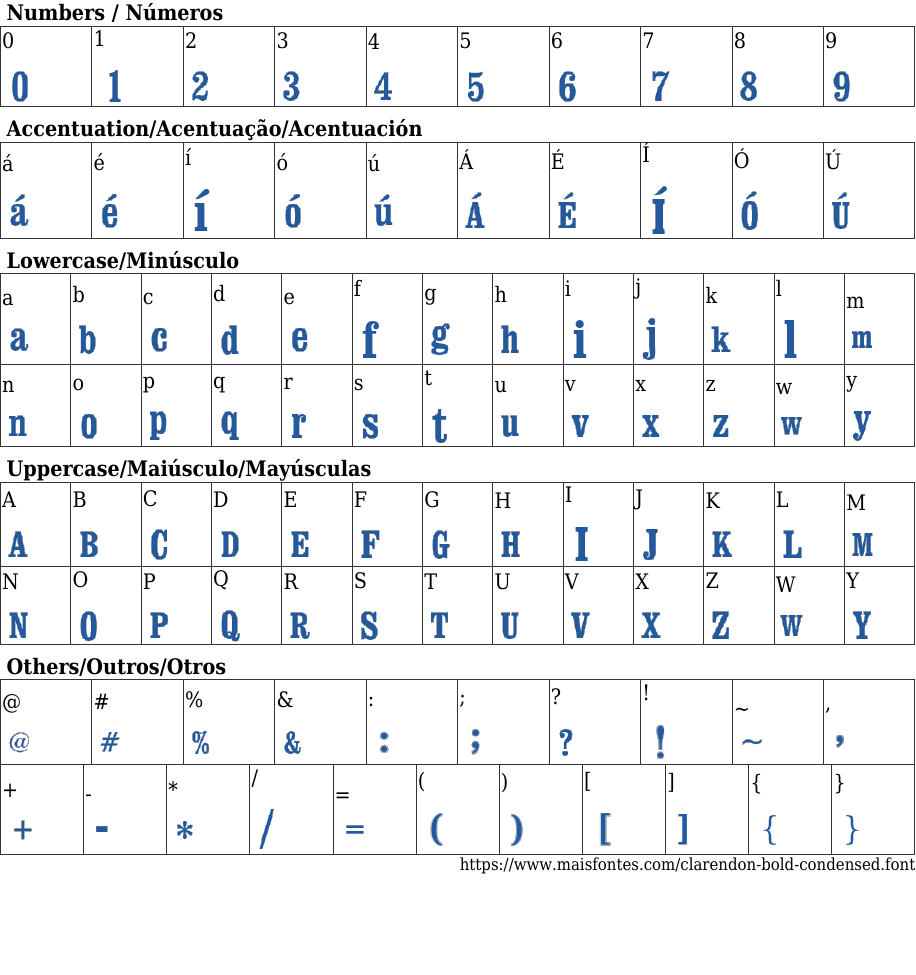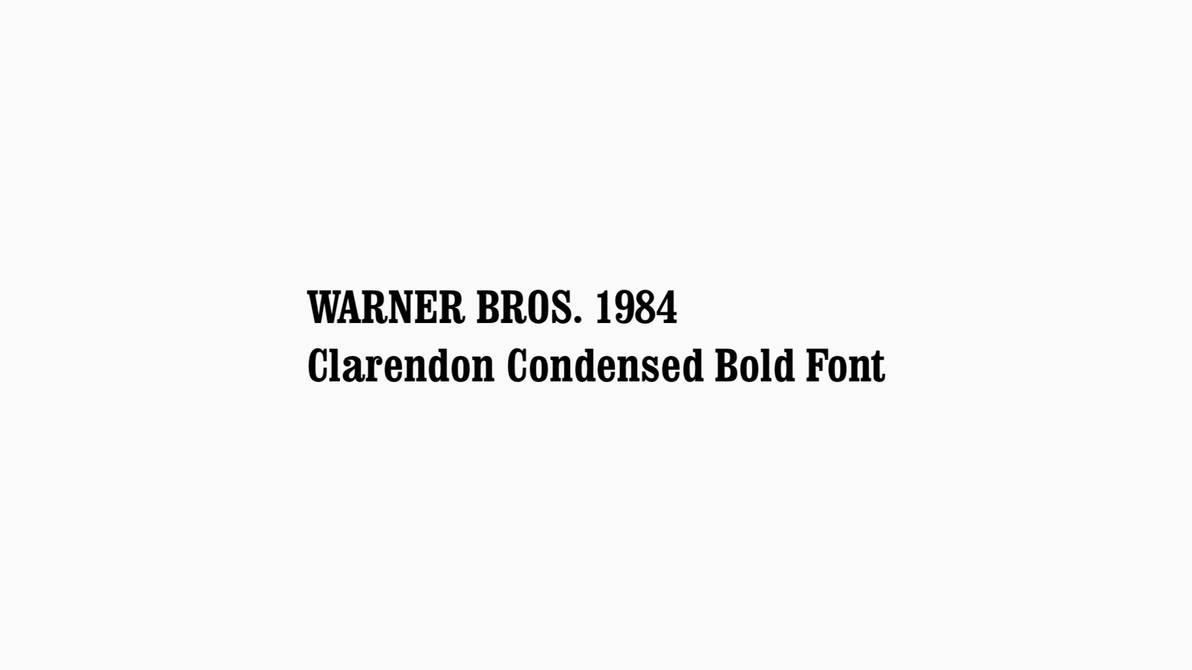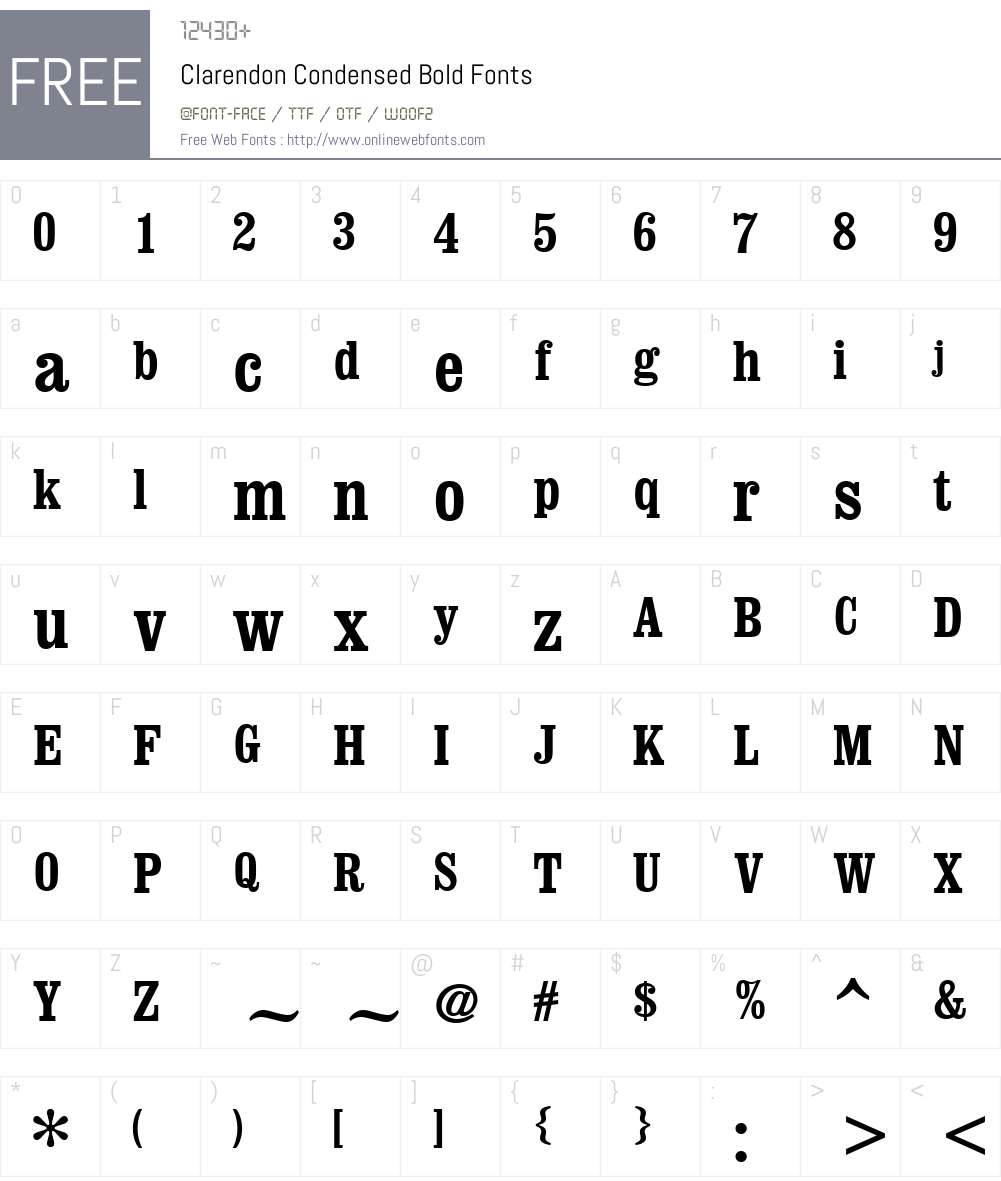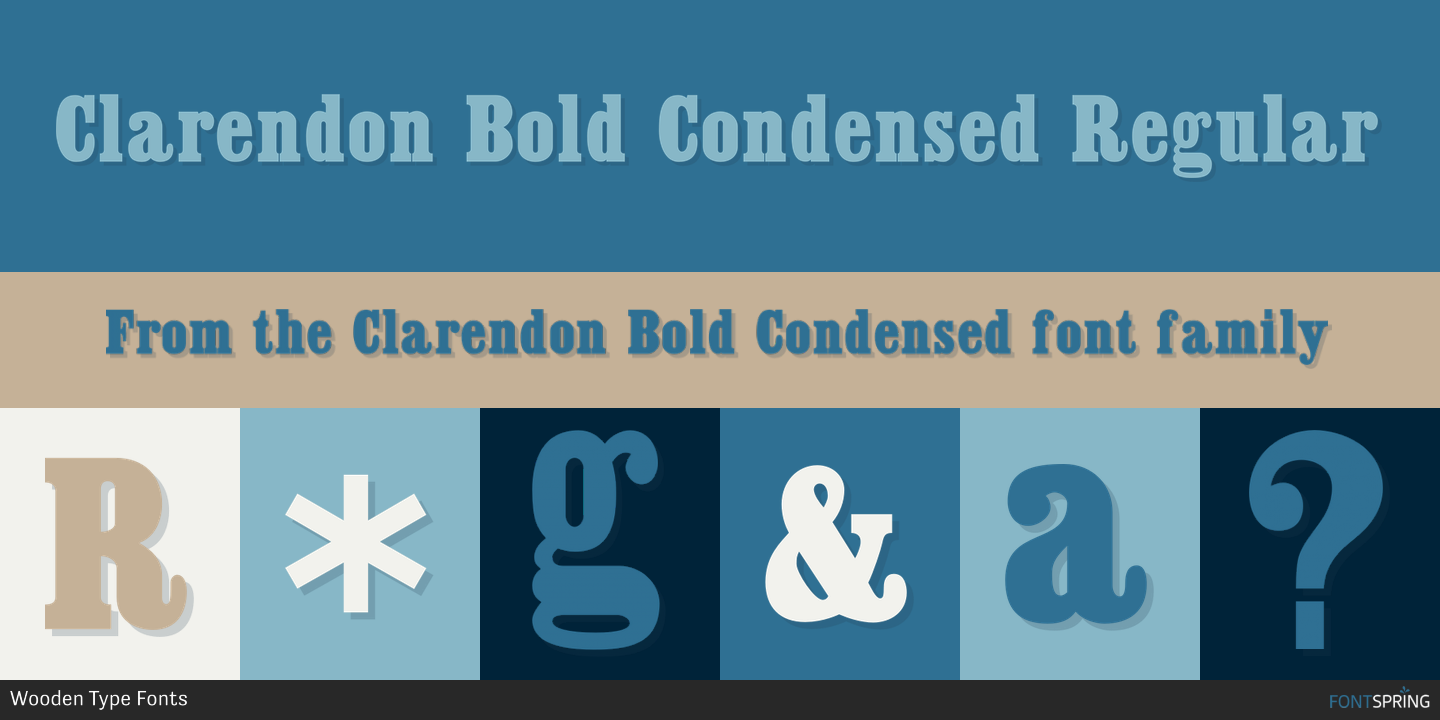
Clarendon Condensed Bold Font Free . A slab serif typeface with 4 styles, available from adobe fonts for sync and web. Download free and premium fonts. sites using the typeface clarendon with personal recommendations for similar web fonts, suggested font pairings and the closest free alternative. Clarendon’s are classical designs with rather thick and strong lines resembling “modern serif types” which were used in the. Explore clarendon text designed by patrick griffin at adobe fonts. This means that you can easily access this versatile and. Fontsplace is the best place to download clarendon bold condensed bt for free. The clarendon pro condensed bold font brings firmer and bolder letters and requires caution in the creation of art in order not to. Clarendon bold condensed font is available for free download at fontsmarket.com. Clarendon condensed font subfamily identification :
A slab serif typeface with 4 styles, available from adobe fonts for sync and web. This means that you can easily access this versatile and. Fontsplace is the best place to download clarendon bold condensed bt for free. Download free and premium fonts. sites using the typeface clarendon with personal recommendations for similar web fonts, suggested font pairings and the closest free alternative. Clarendon’s are classical designs with rather thick and strong lines resembling “modern serif types” which were used in the. The clarendon pro condensed bold font brings firmer and bolder letters and requires caution in the creation of art in order not to. Clarendon condensed font subfamily identification : Explore clarendon text designed by patrick griffin at adobe fonts. Clarendon bold condensed font is available for free download at fontsmarket.com.
Clarendon Condensed Bold Font Free Download free and premium fonts. A slab serif typeface with 4 styles, available from adobe fonts for sync and web. Clarendon condensed font subfamily identification : The clarendon pro condensed bold font brings firmer and bolder letters and requires caution in the creation of art in order not to. sites using the typeface clarendon with personal recommendations for similar web fonts, suggested font pairings and the closest free alternative. Download free and premium fonts. This means that you can easily access this versatile and. Fontsplace is the best place to download clarendon bold condensed bt for free. Explore clarendon text designed by patrick griffin at adobe fonts. Clarendon bold condensed font is available for free download at fontsmarket.com. Clarendon’s are classical designs with rather thick and strong lines resembling “modern serif types” which were used in the.
Clarendon Font Free Download Clarendon Condensed Bold Font Free Fontsplace is the best place to download clarendon bold condensed bt for free. The clarendon pro condensed bold font brings firmer and bolder letters and requires caution in the creation of art in order not to. sites using the typeface clarendon with personal recommendations for similar web fonts, suggested font pairings and the closest free alternative. Clarendon condensed font subfamily. Clarendon Condensed Bold Font Free.
ClarendonBold Font by Charlieaat on DeviantArt Clarendon Condensed Bold Font Free Download free and premium fonts. Clarendon bold condensed font is available for free download at fontsmarket.com. A slab serif typeface with 4 styles, available from adobe fonts for sync and web. sites using the typeface clarendon with personal recommendations for similar web fonts, suggested font pairings and the closest free alternative. Clarendon condensed font subfamily identification : Explore clarendon text. Clarendon Condensed Bold Font Free.
Clarendon Font Clarendon Condensed Bold Font Free Fontsplace is the best place to download clarendon bold condensed bt for free. Clarendon condensed font subfamily identification : Explore clarendon text designed by patrick griffin at adobe fonts. A slab serif typeface with 4 styles, available from adobe fonts for sync and web. Download free and premium fonts. sites using the typeface clarendon with personal recommendations for similar web. Clarendon Condensed Bold Font Free.
Identifont Clarendon Bold Clarendon Condensed Bold Font Free The clarendon pro condensed bold font brings firmer and bolder letters and requires caution in the creation of art in order not to. This means that you can easily access this versatile and. Clarendon’s are classical designs with rather thick and strong lines resembling “modern serif types” which were used in the. A slab serif typeface with 4 styles, available. Clarendon Condensed Bold Font Free.
Clarendon Condensed Bold TrueType police Clarendon Condensed Bold Font Free Download free and premium fonts. Clarendon’s are classical designs with rather thick and strong lines resembling “modern serif types” which were used in the. Fontsplace is the best place to download clarendon bold condensed bt for free. Explore clarendon text designed by patrick griffin at adobe fonts. Clarendon condensed font subfamily identification : Clarendon bold condensed font is available for. Clarendon Condensed Bold Font Free.
Clarendon Condensed Bold truetype font Clarendon Condensed Bold Font Free The clarendon pro condensed bold font brings firmer and bolder letters and requires caution in the creation of art in order not to. A slab serif typeface with 4 styles, available from adobe fonts for sync and web. sites using the typeface clarendon with personal recommendations for similar web fonts, suggested font pairings and the closest free alternative. Clarendon condensed. Clarendon Condensed Bold Font Free.
Clarendon SB Bold Condensed Fonts Clarendon Condensed Bold Font Free This means that you can easily access this versatile and. A slab serif typeface with 4 styles, available from adobe fonts for sync and web. Explore clarendon text designed by patrick griffin at adobe fonts. Download free and premium fonts. Clarendon condensed font subfamily identification : Fontsplace is the best place to download clarendon bold condensed bt for free. The. Clarendon Condensed Bold Font Free.
Clarendon Condensed Bold шрифт Clarendon Condensed Bold Font Free The clarendon pro condensed bold font brings firmer and bolder letters and requires caution in the creation of art in order not to. Download free and premium fonts. Clarendon’s are classical designs with rather thick and strong lines resembling “modern serif types” which were used in the. This means that you can easily access this versatile and. Clarendon bold condensed. Clarendon Condensed Bold Font Free.